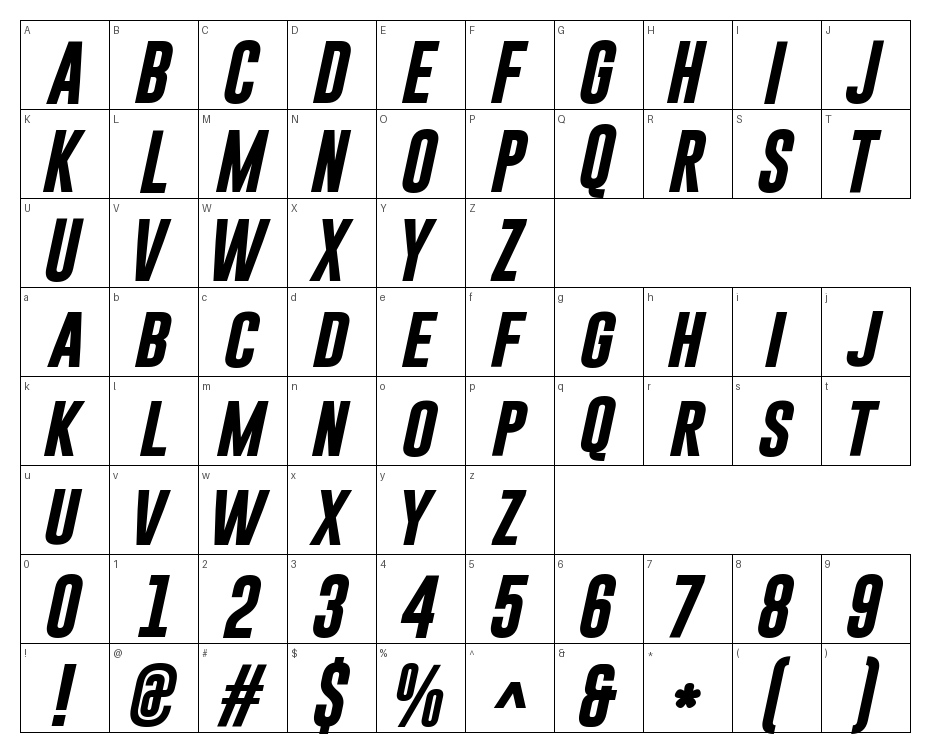
A stunning elegant Sans Serif font, GOBOLD Font Update 2, added 4 family [Extra2 Regular and Italic, CUTS Regular and Italic] and fixed some characters
Nome da fonte: Gobold
Nome do designer: 7NTypes